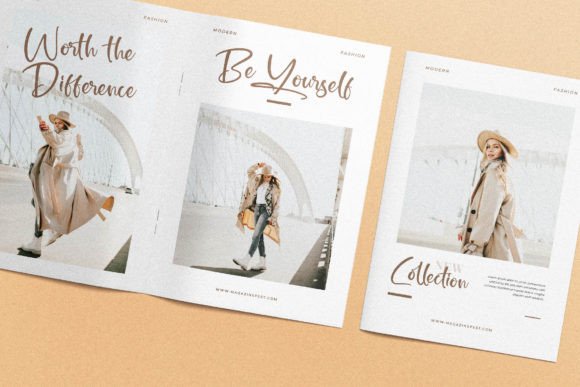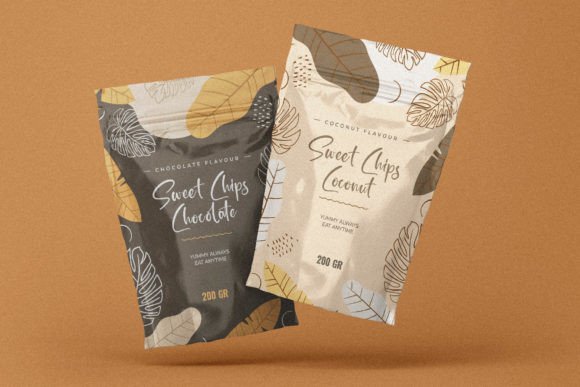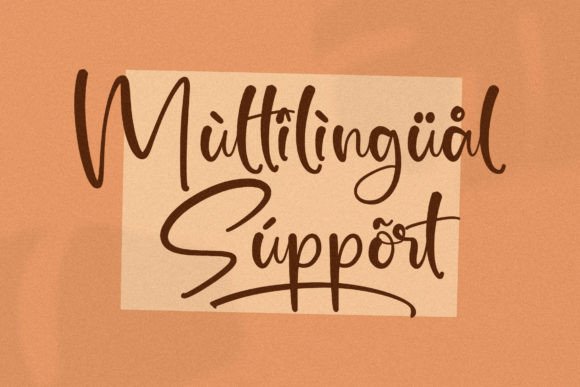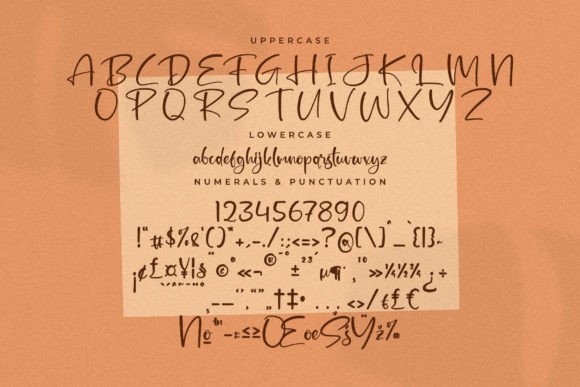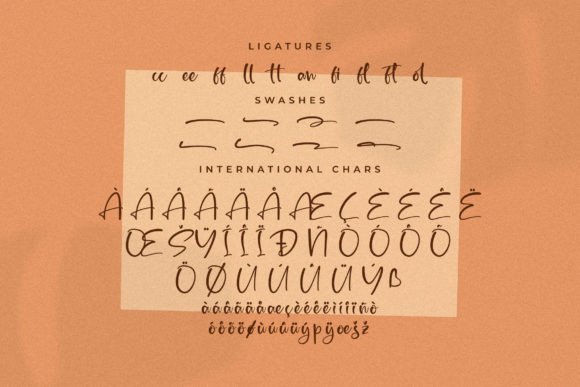
Grand Panttura
About Grand Panttura
Grand Panttura is a romantic and sweet calligraphy typeface with characters that dance along the baseline. It will add a luxury spark to any design project that you wish to create!